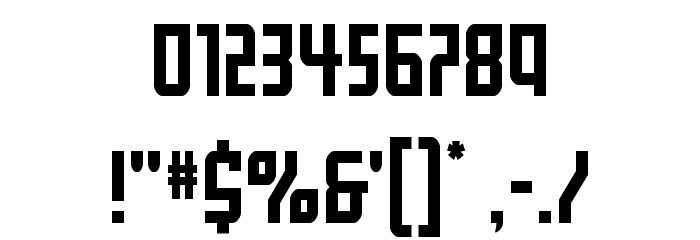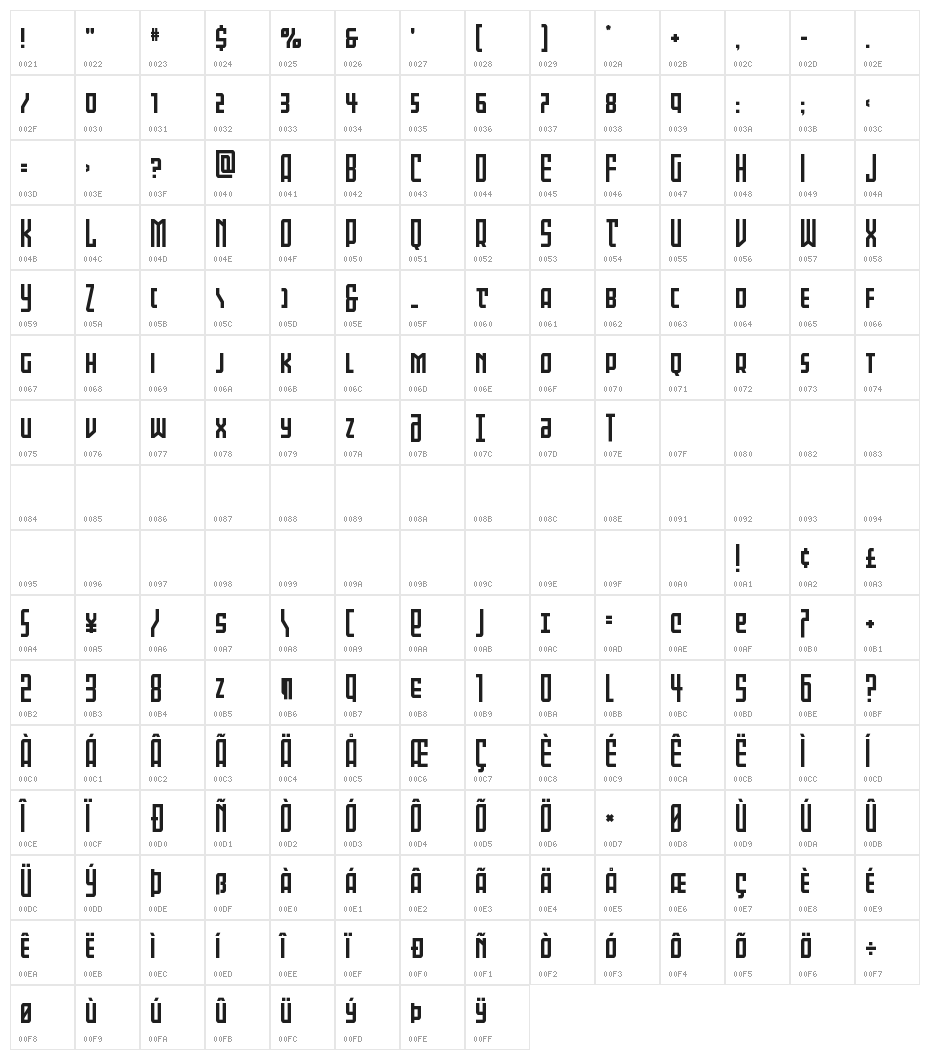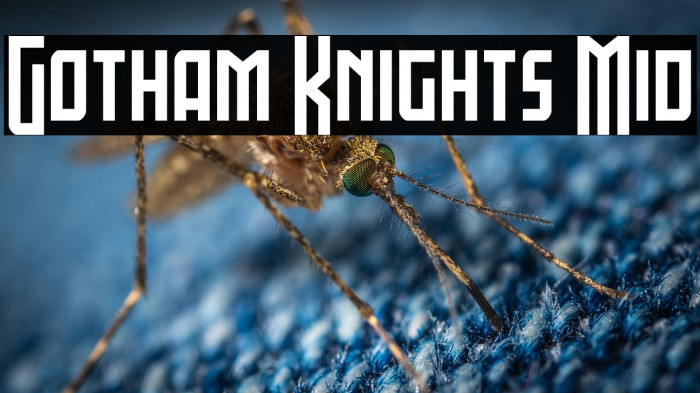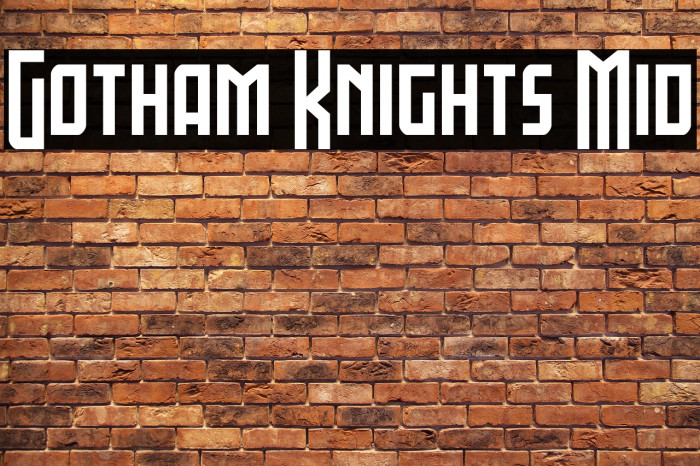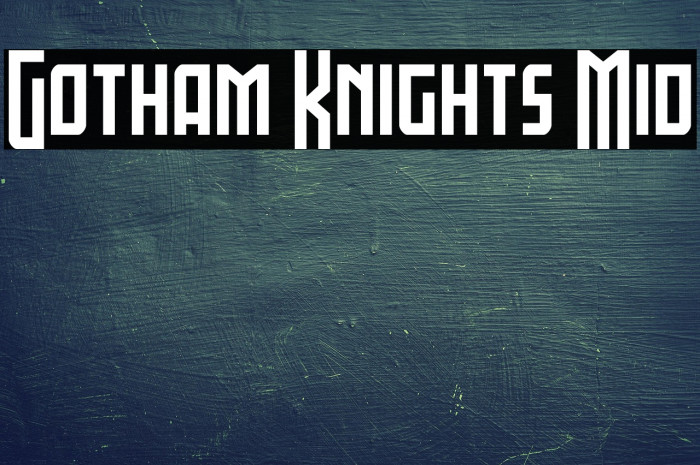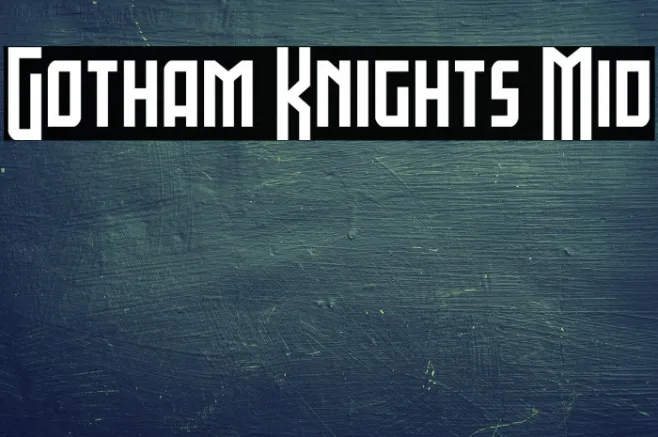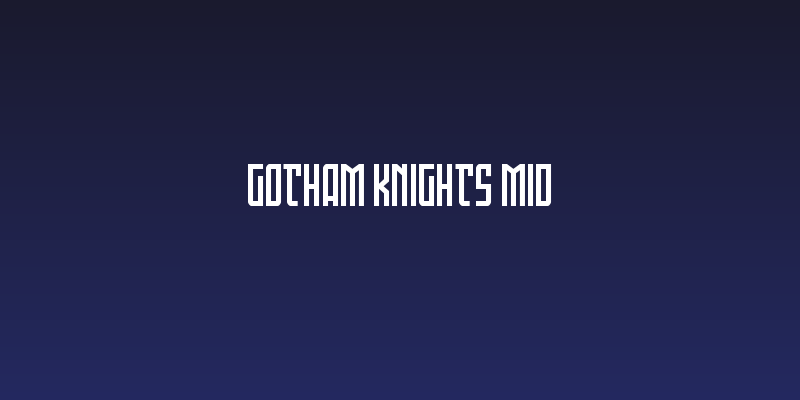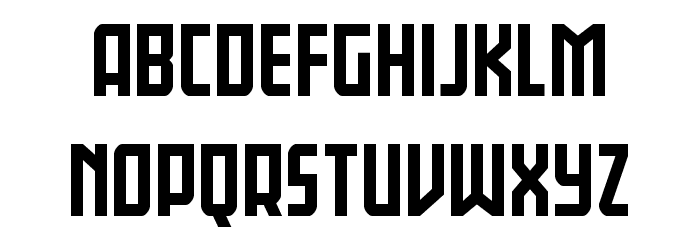
Gotham Knights Mid Font
Gotham Knights Mid Description
This font features a bold, geometric design with a strong, modern aesthetic. The characters are constructed with sharp angles and clean lines, giving it a futuristic and tech-inspired look. The uppercase and lowercase letters maintain a consistent height, contributing to a uniform appearance. The numerals and special characters are designed to match the boldness and angularity of the letters, ensuring a cohesive style throughout. This font is highly legible and makes a strong visual impact, suitable for various design applications.